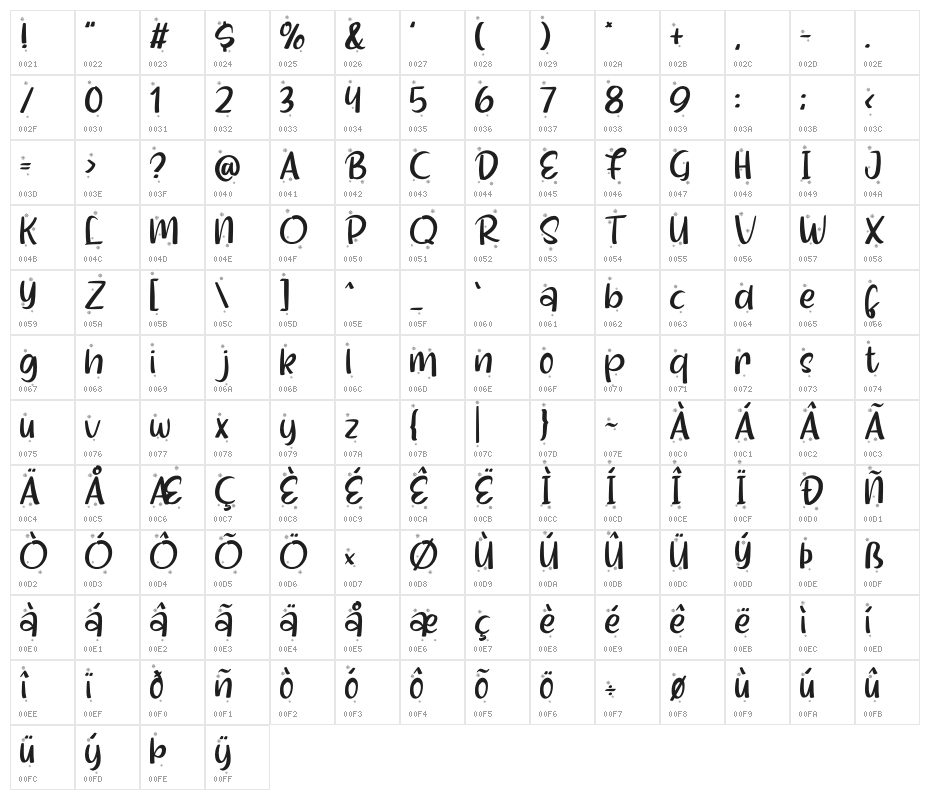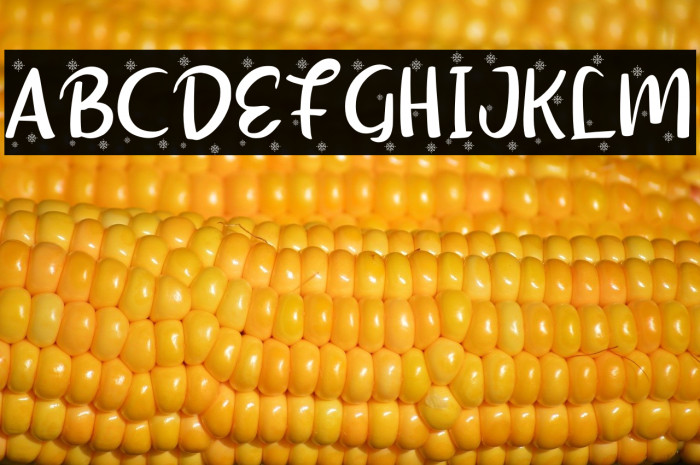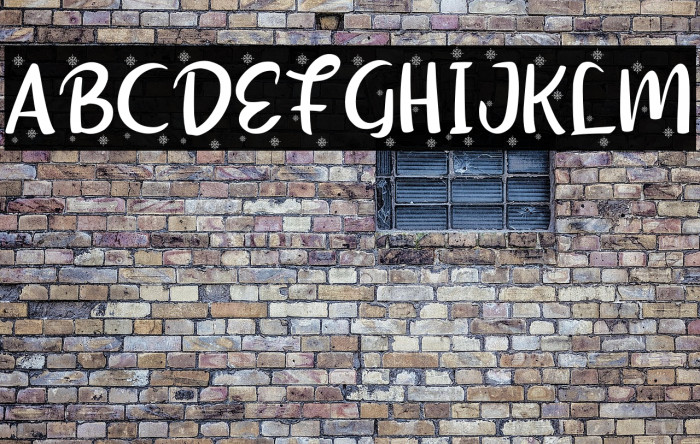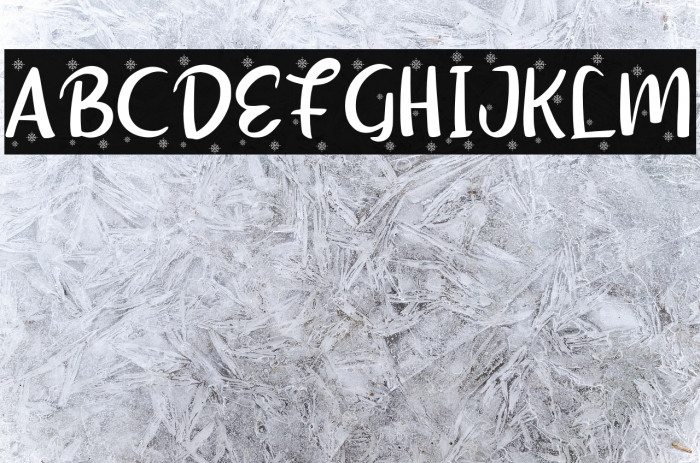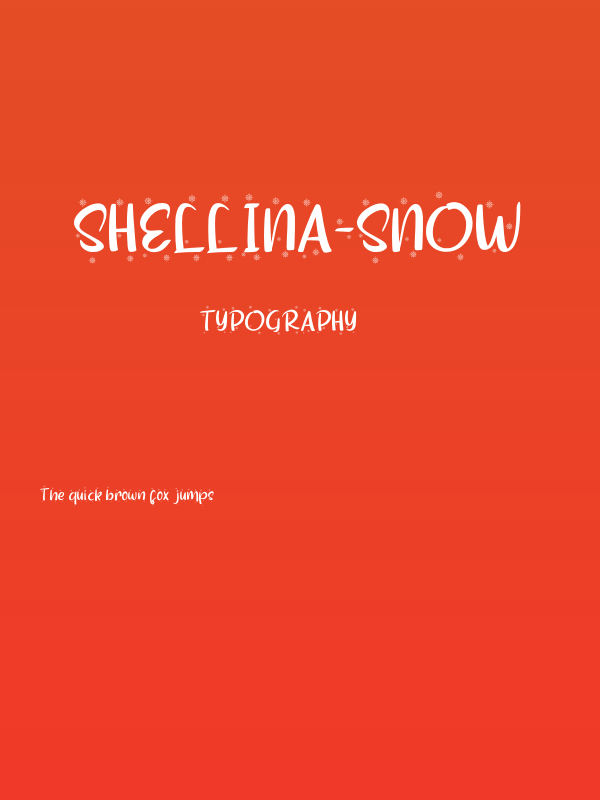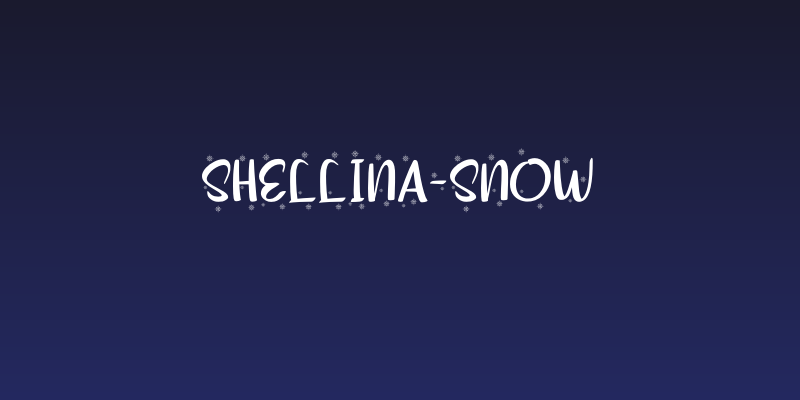
Shellina-Snow Font
Shellina-Snow Description
This playful and whimsical font features a handwritten style with a festive twist. Each character is adorned with small snowflake accents, adding a touch of winter charm. The letters have a smooth, flowing appearance with rounded edges and a slight slant, giving them a casual and friendly feel. The font maintains consistent stroke thickness, providing a balanced and cohesive look. Its unique design makes it ideal for holiday-themed projects or any creative work that seeks to convey warmth and joy.
| Use Case | Headlines, Logos, Invitations |
| Proposed Projects | Ideal for holiday cards, festive invitations, winter-themed posters, and playful branding. |